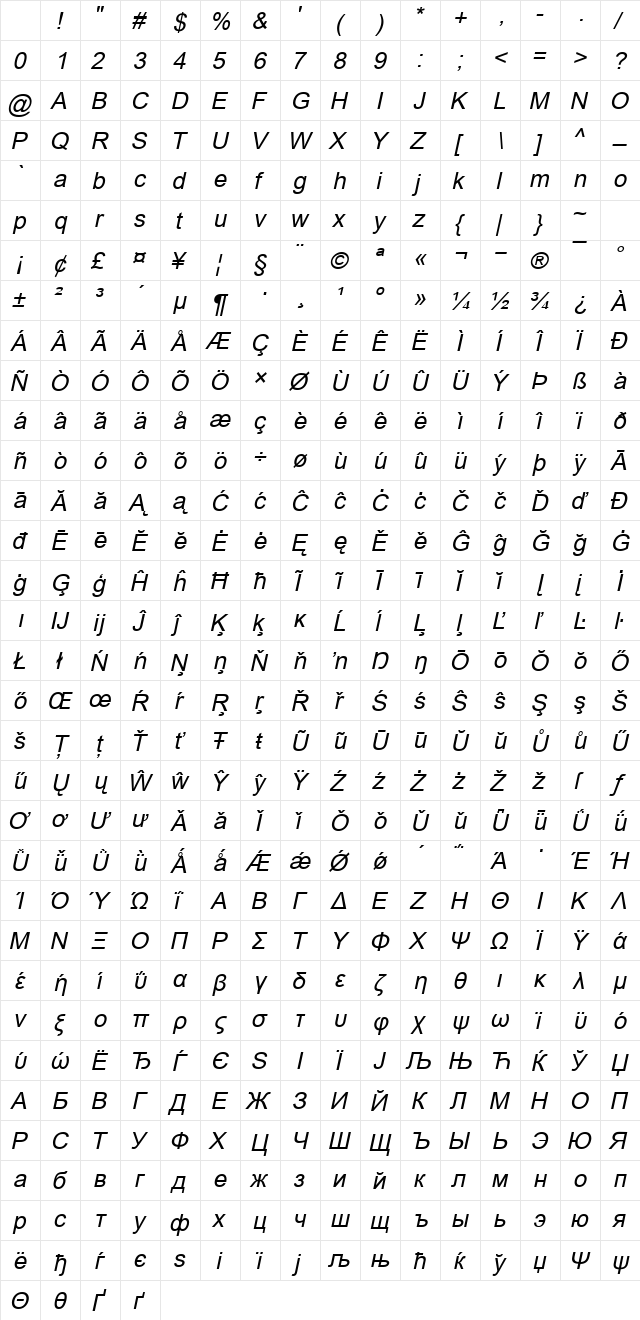
Amaro Arial is a composed and adaptable typeface that performs quietly and consistently across a wide range of design contexts. The slanted form adds forward momentum and visual energy.
Pro Tip: Use Amaro Arial for emphasis, pull quotes, and subheadings where its slanted energy can add rhythm to the layout.